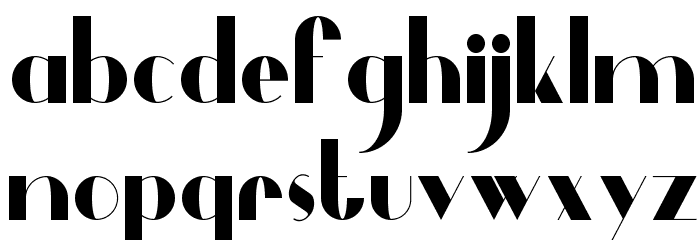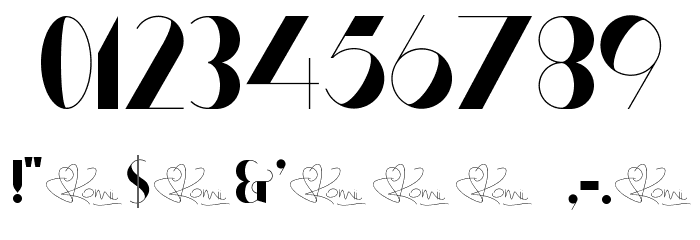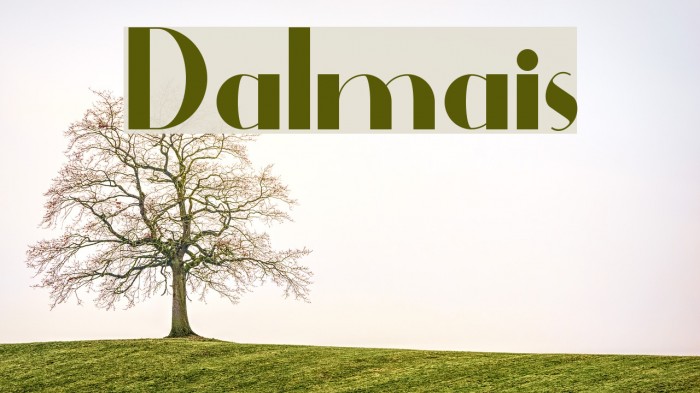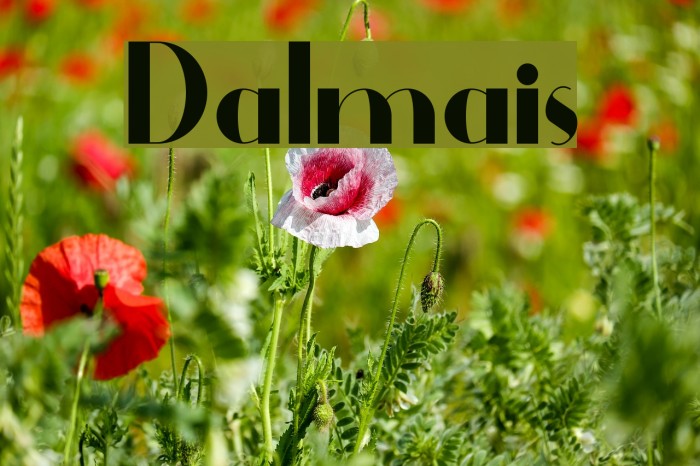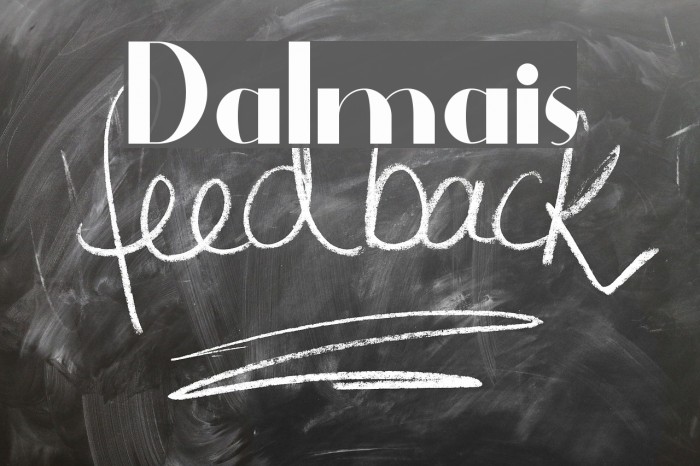
Dalmais Font
This font exhibits a striking and elegant design, characterized by its high contrast between thick and thin strokes. The uppercase letters are bold and commanding, with a modern flair that combines both sharp angles and smooth curves. The lowercase letters maintain a consistent style, offering a sleek and sophisticated appearance. Numbers are designed with a similar aesthetic, ensuring uniformity across all characters. The special characters add a touch of uniqueness, with some featuring intricate details that enhance the overall visual appeal. This font is perfect for making a bold statement while retaining a sense of elegance and style.
A high-contrast, elegant font with bold uppercase and sleek lowercase letters.
- Proposed Projects: Ideal for luxury branding, fashion magazines, high-end product packaging, and elegant invitations.
- Overall Style: Modern, Elegant
- Use Case: Headlines, Logos, Branding